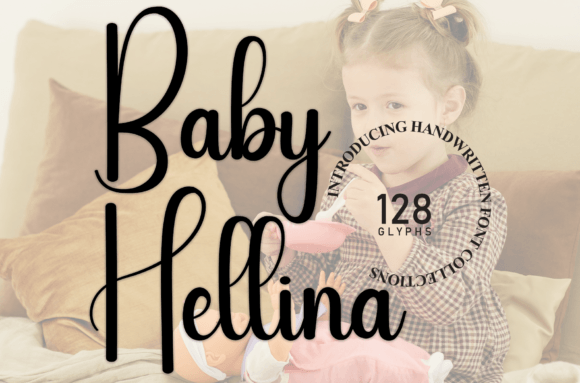
Get lost in the delightful world of Baby Hellina Font, where elegance and charm dance harmoniously. This captivating script font, lovingly crafted by William Jhorby, is a visual symphony that brings life to your creative visions.
Inspired by the innocence of childhood, Baby Hellina exudes a playful and approachable character. Its smooth, flowing curves mimic the carefree strokes of a child's hand, evoking a sense of nostalgia and warmth. With its unique and enchanting style, Baby Hellina is the perfect choice for adding a personal touch to your designs.
Dive into Baby Hellina's versatile nature and discover its endless possibilities. Whether you're designing wedding invitations, greeting cards, social media graphics, or eye-catching logos, this font will seamlessly adapt and elevate your creations. Its inherent charm will captivate your audience, leaving a lasting impression that resonates deep within.
Step into the enchanting world of Baby Hellina Font, where creativity knows no bounds. Let your imagination soar as you explore the myriad ways this font can transform your designs. Its playful and inviting style will add a touch of magic to any project, inviting your audience on an unforgettable journey through your artistic vision.